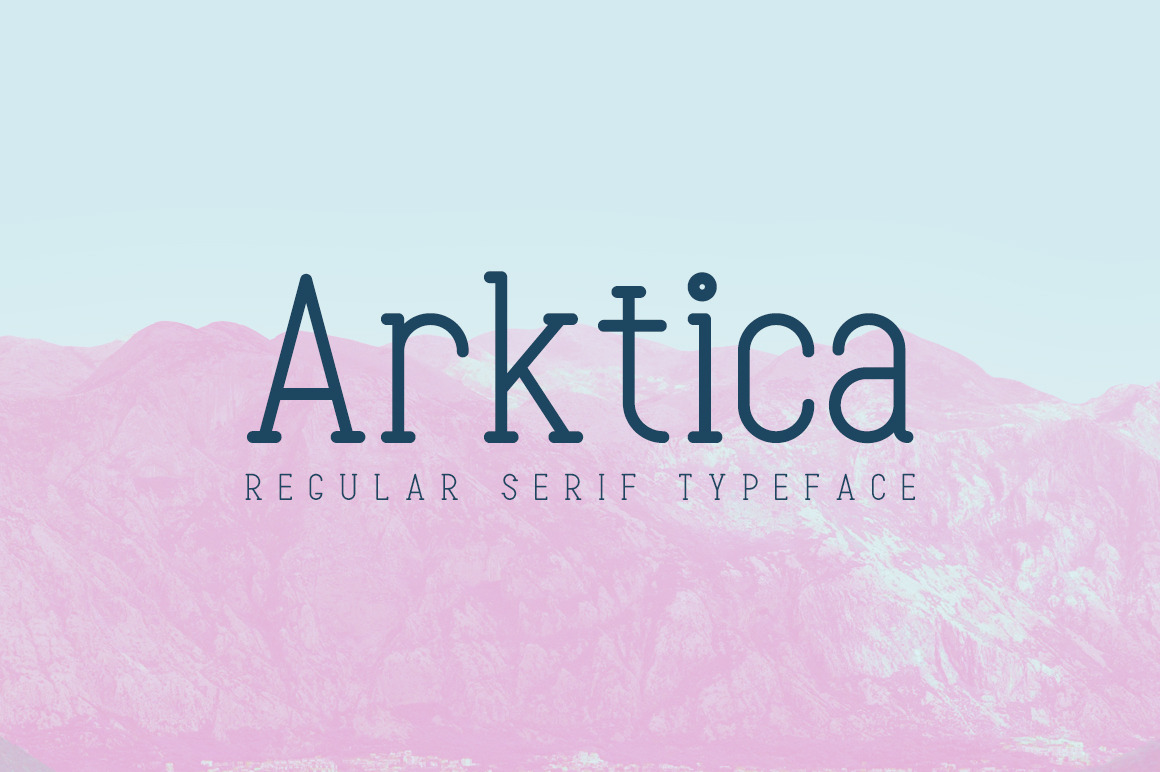
Arktica Font
Arktica Font is a unique minimalistic typeface.
Made for giving minimalistic titles. Arktica packs a set of uppercase and lowercase, numbers and punctuation. Font for design greeting, logos, prints, web design, invitation, business cards, quotes, clothing brand, design greeting, cafe and much more.
Each letter is a thin line and serif. Hopefully you enjoy the result!